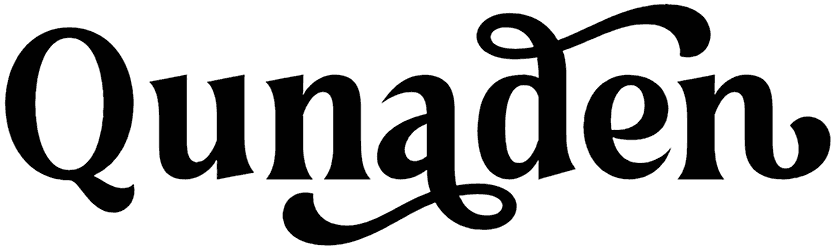
Qunaden Font
Any time you want, bring spring itself to your lettering with the nice flourishing style of Qunaden, a sweet retro font of RB that can level up your typography with great taste.
After all, there’s no competing with those rounded serifs, keeping things in a playfully retro flavor. This sort of swash font usually has a lot to say about your cooking books, video games with a magic theme, bakery shop posters, and anything else from the same fun genre.